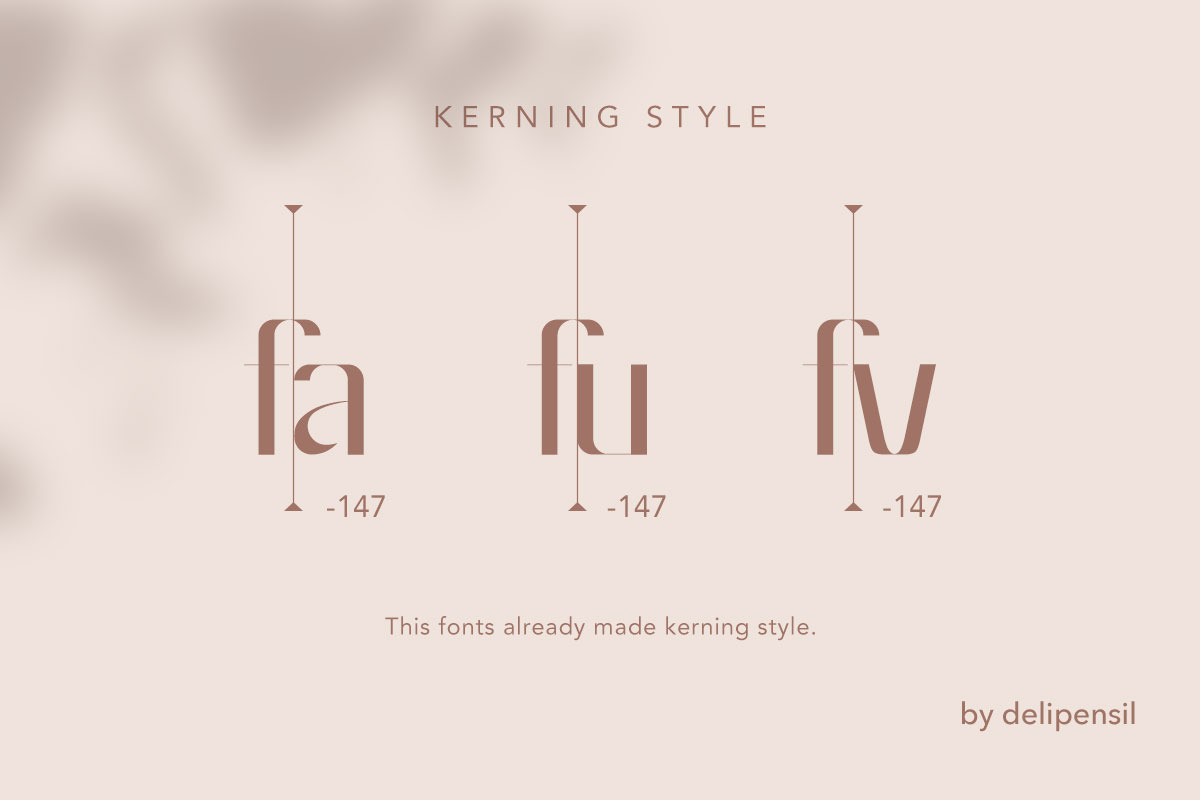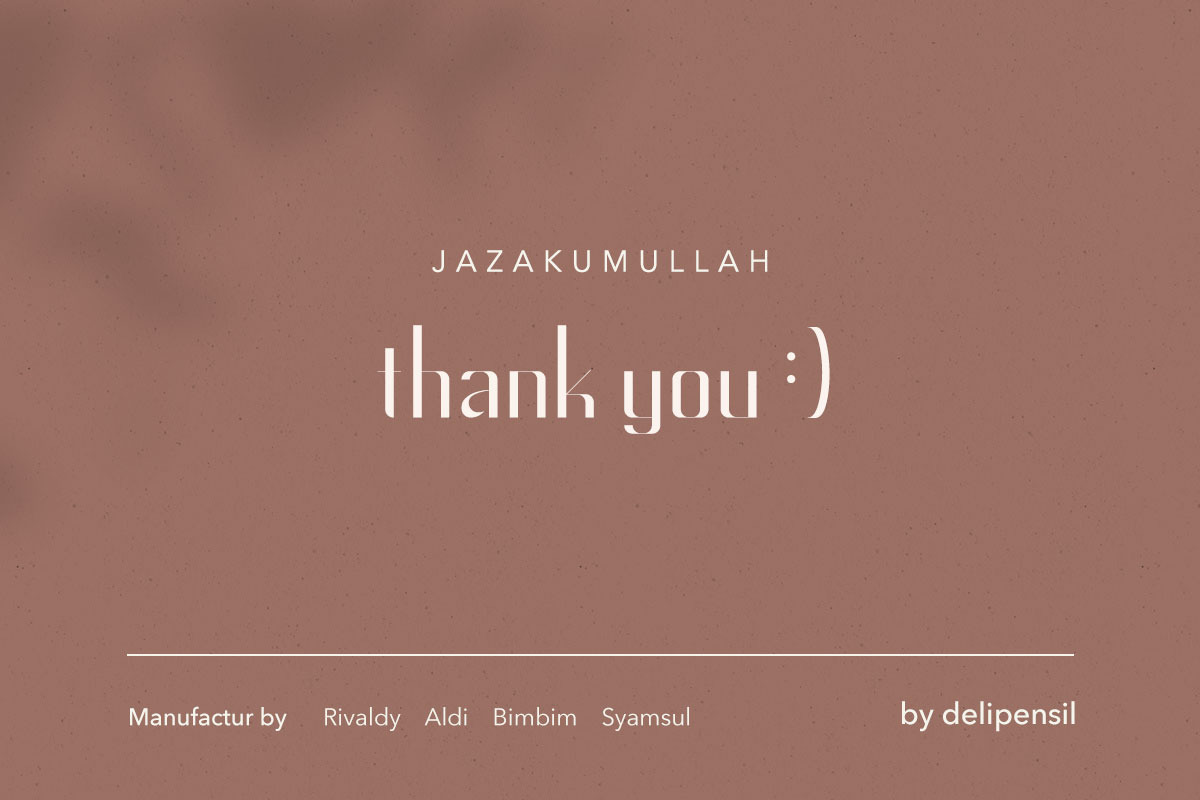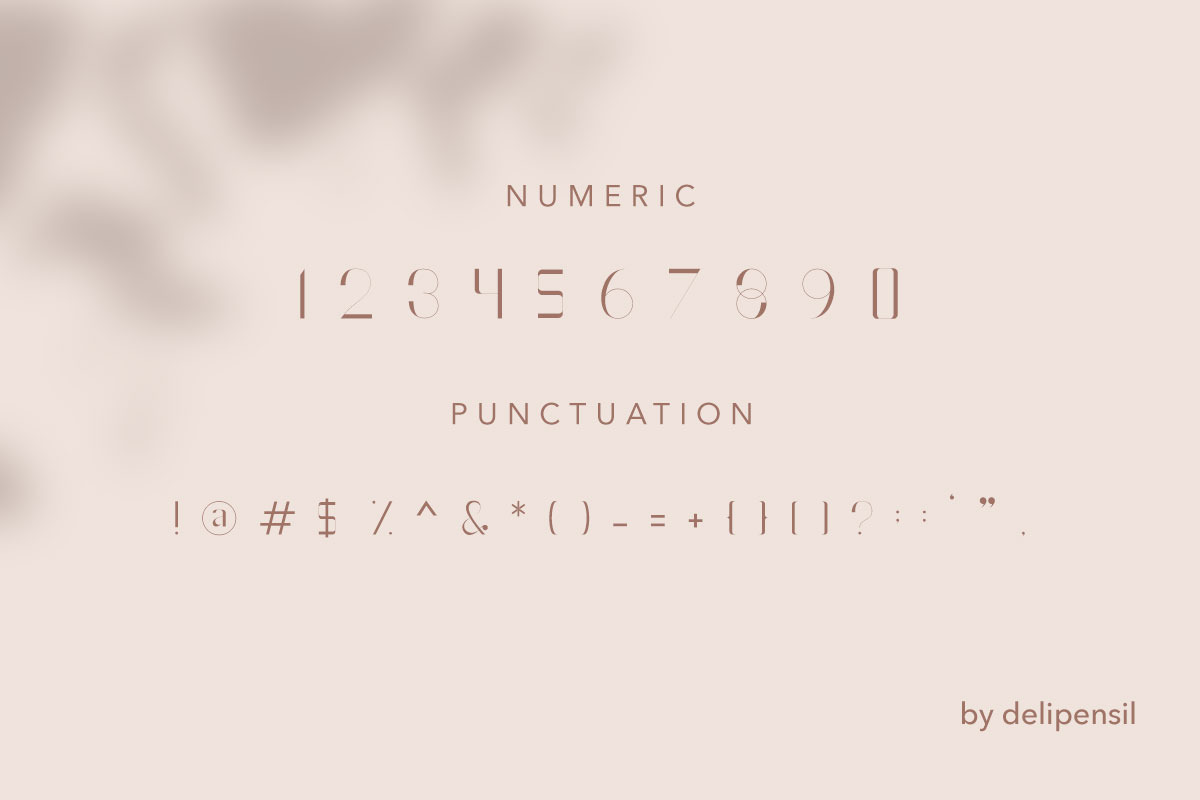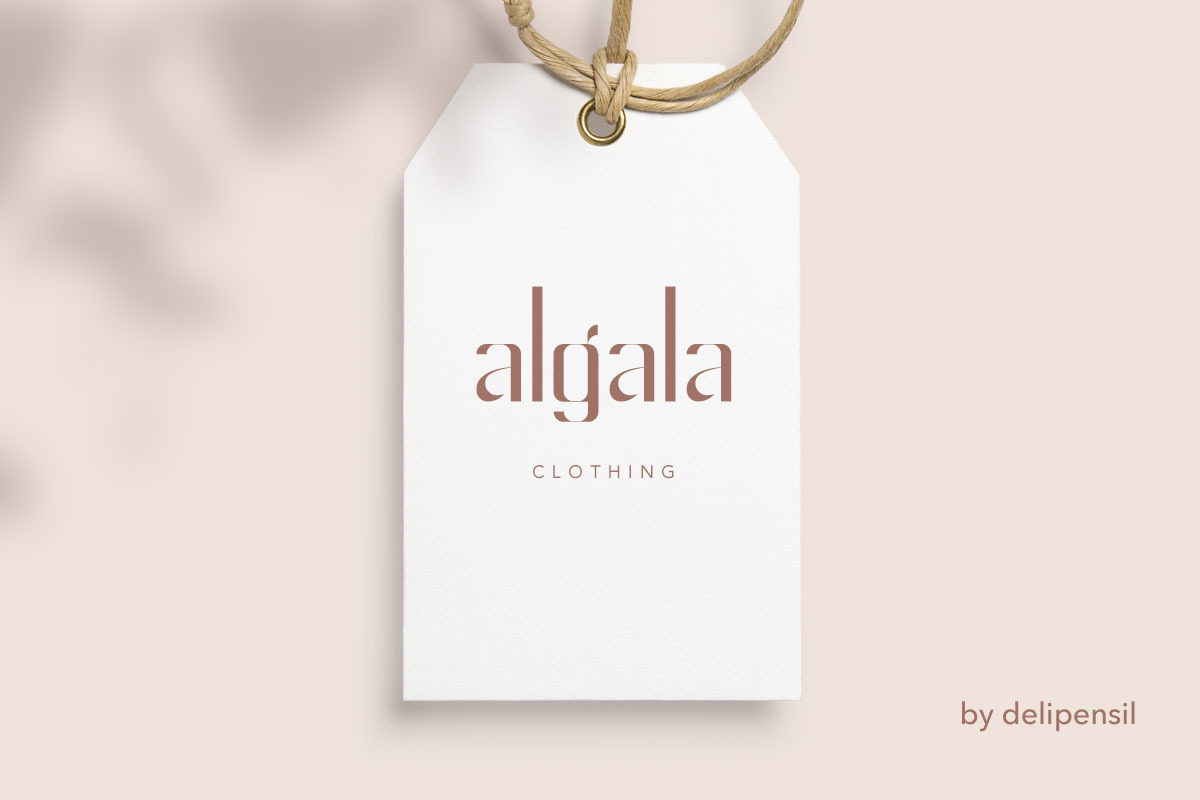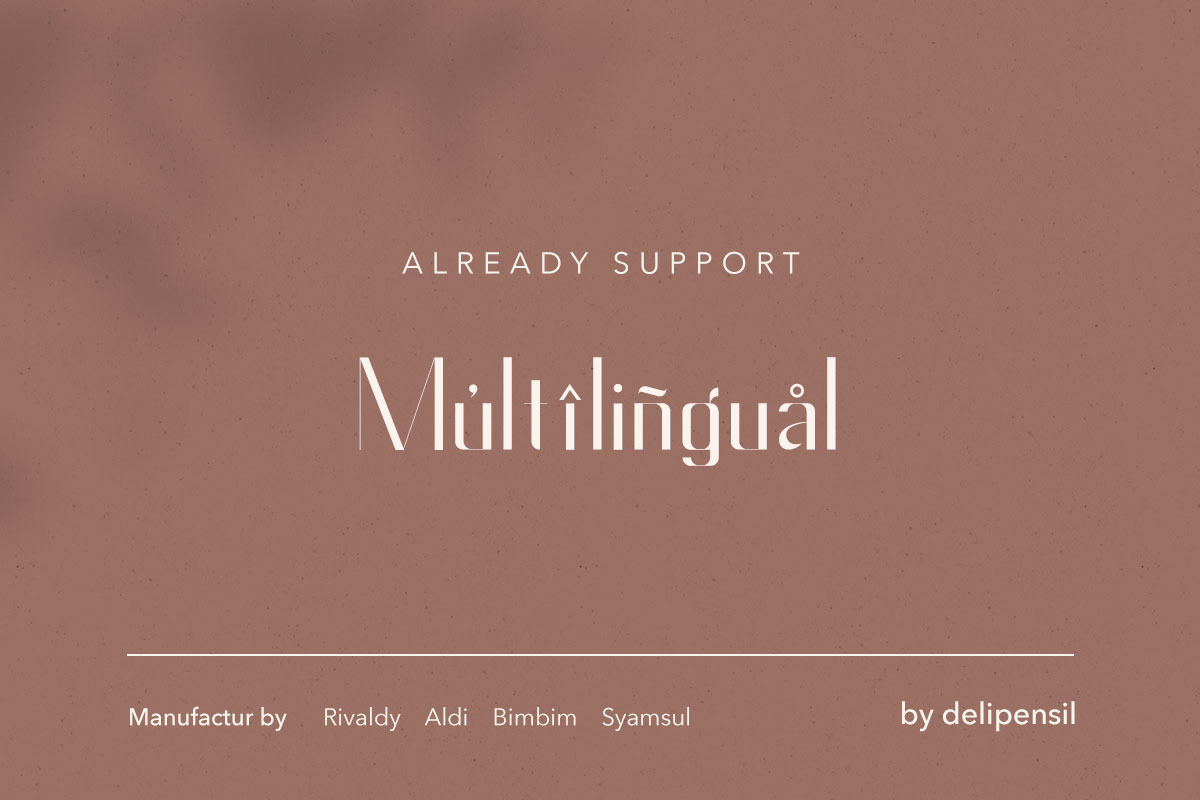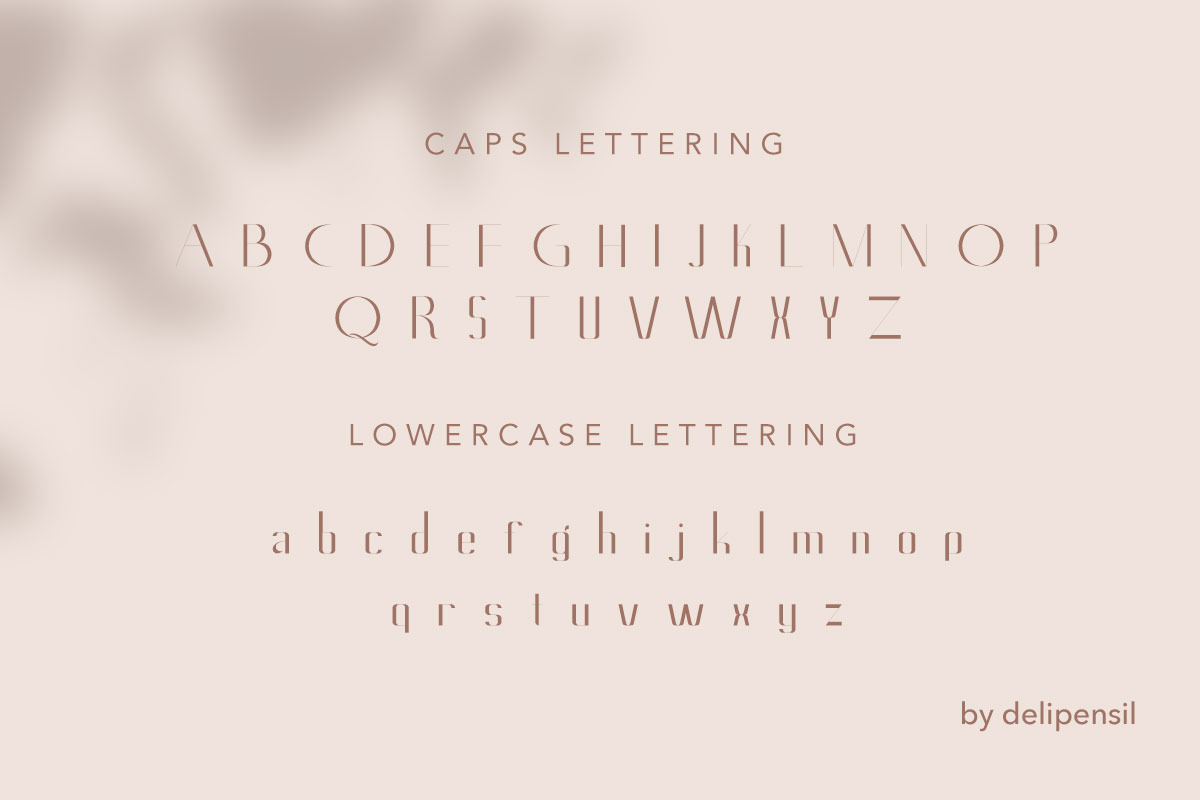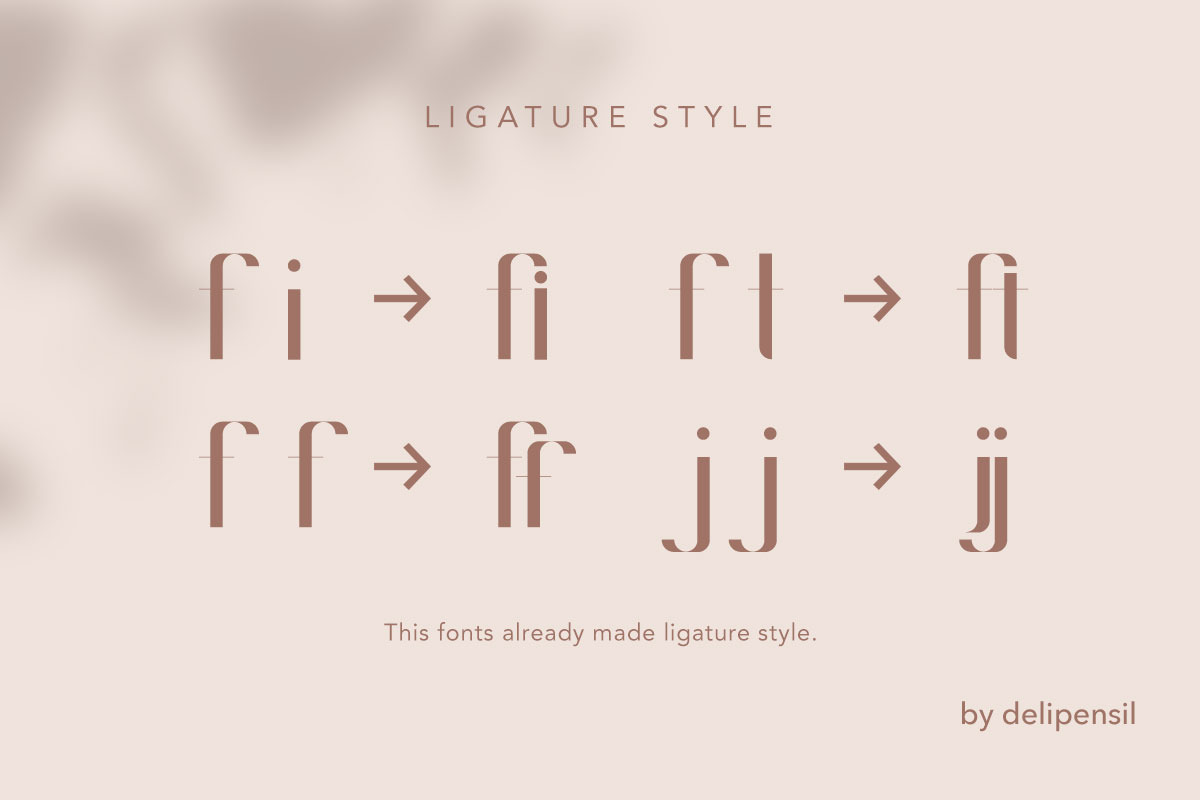
Algala - Elegant Medium Font
Bismillah, Introduction Algala - Elegant Medium Font
Minimalist & Elegant font by delipensil, clean, beauty, and mindfully come in here font, :) Really happy can show our new font, you can use it for headlines, paragraphs, cover photos, web design, logo, and everything with the elegant touch you can get it now :)
Algala-Medium Font Style
Algala-Medium Numeral & Punctuation
Algala-Medium Language Style
Algala-Medium Kerning Style
Algala-Medium Ligature Style